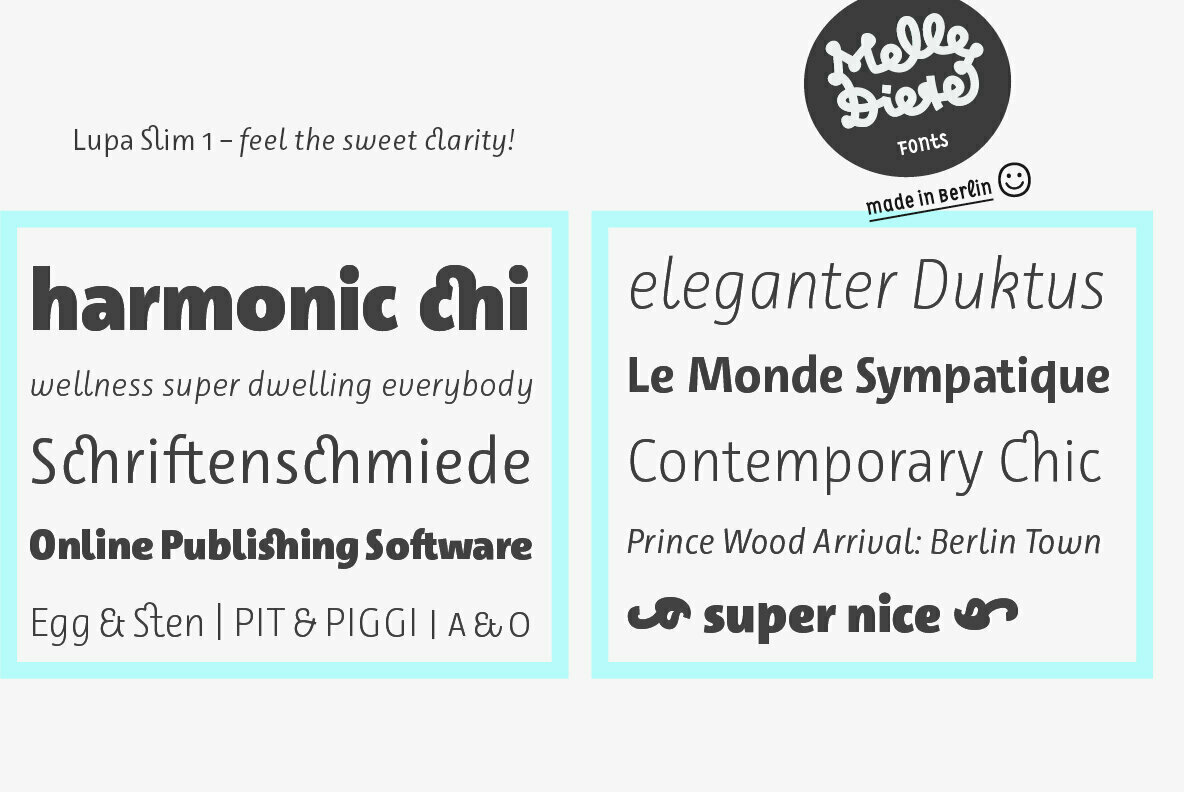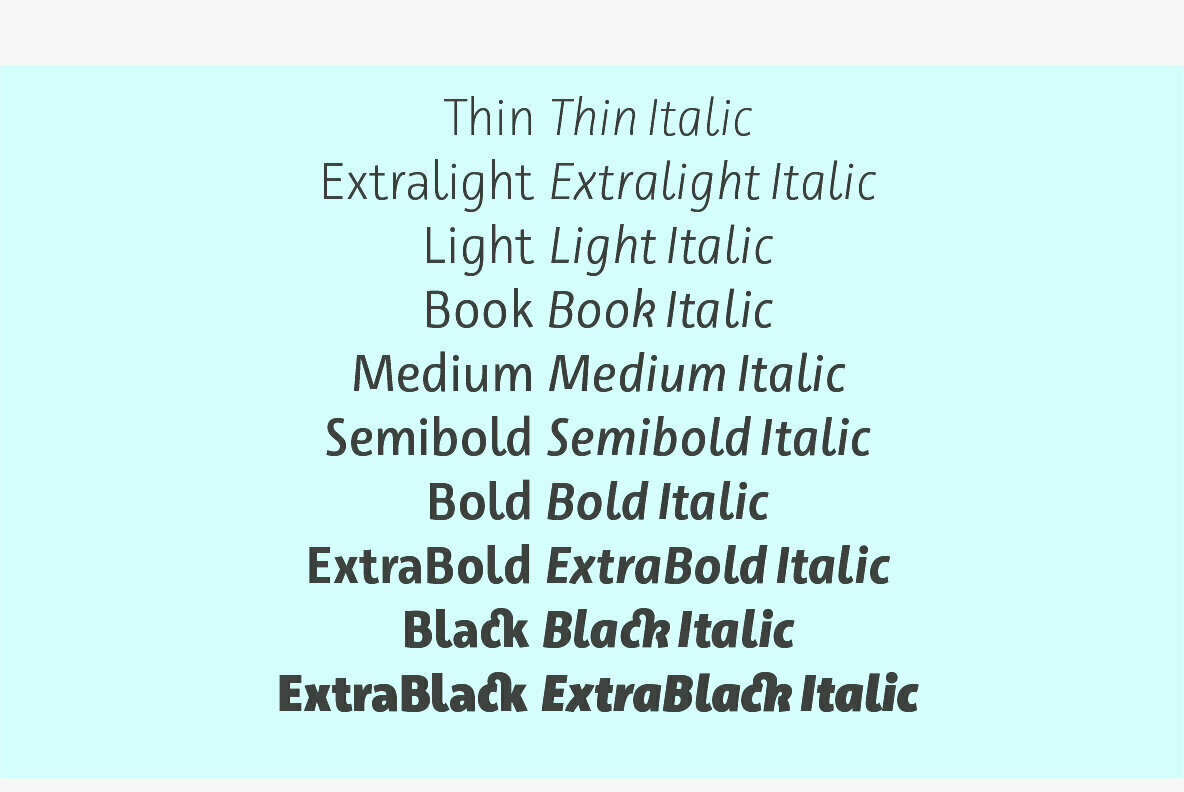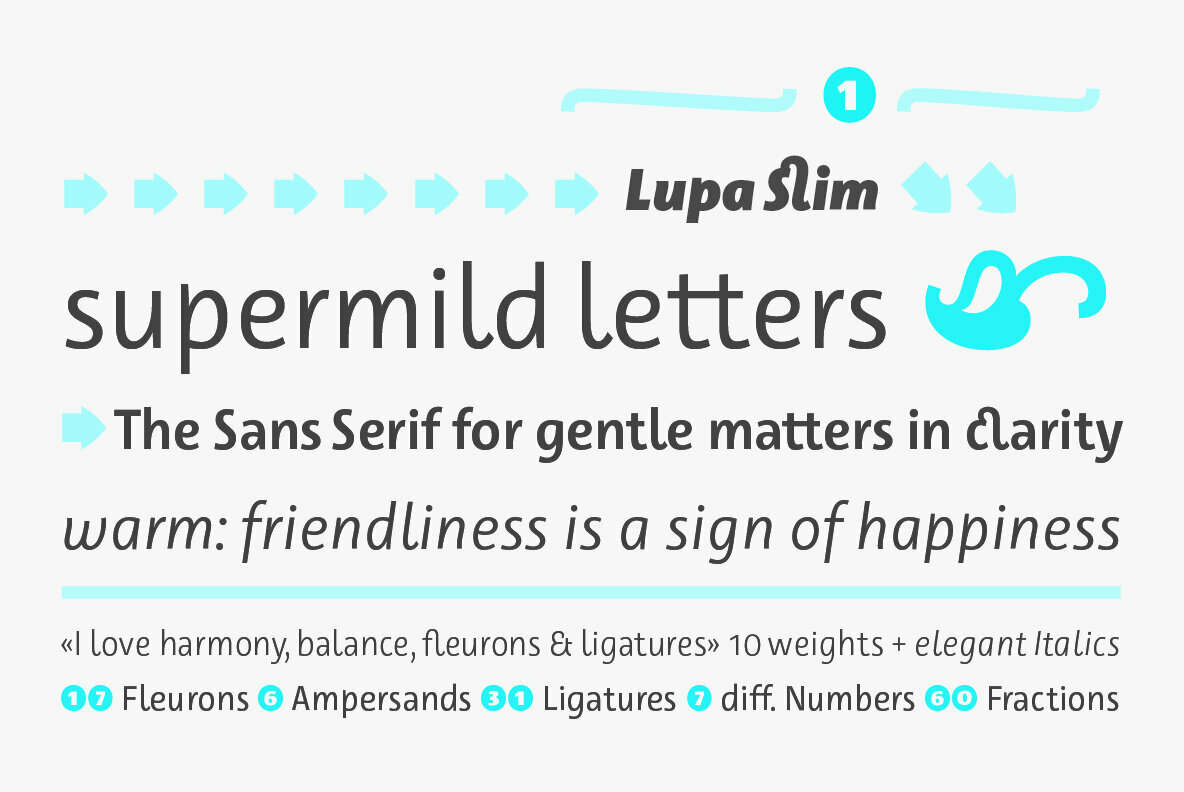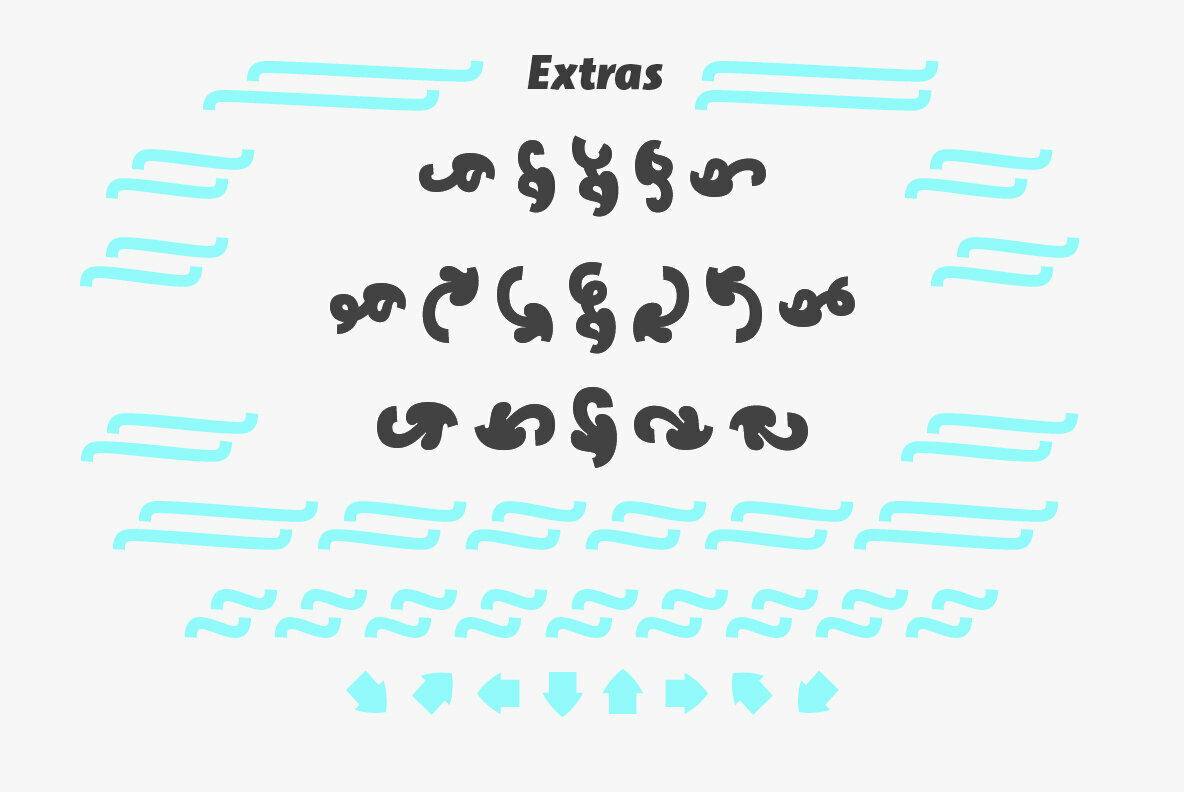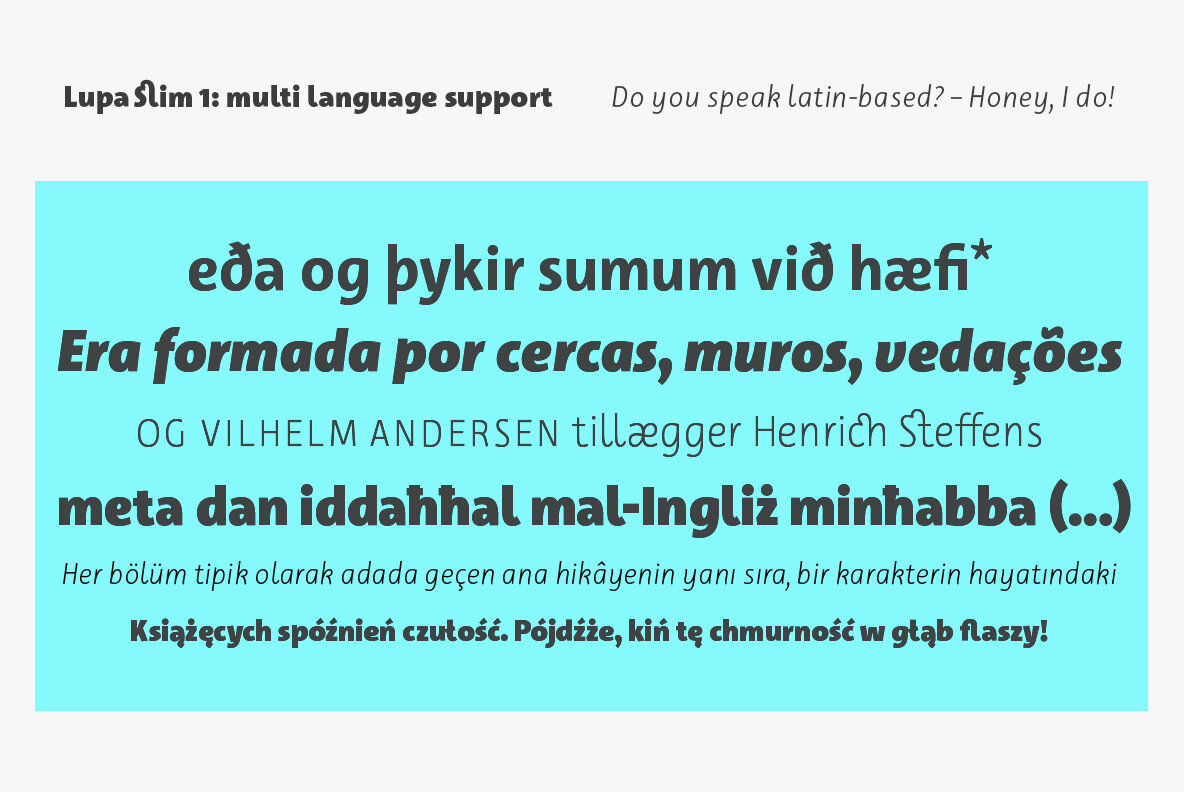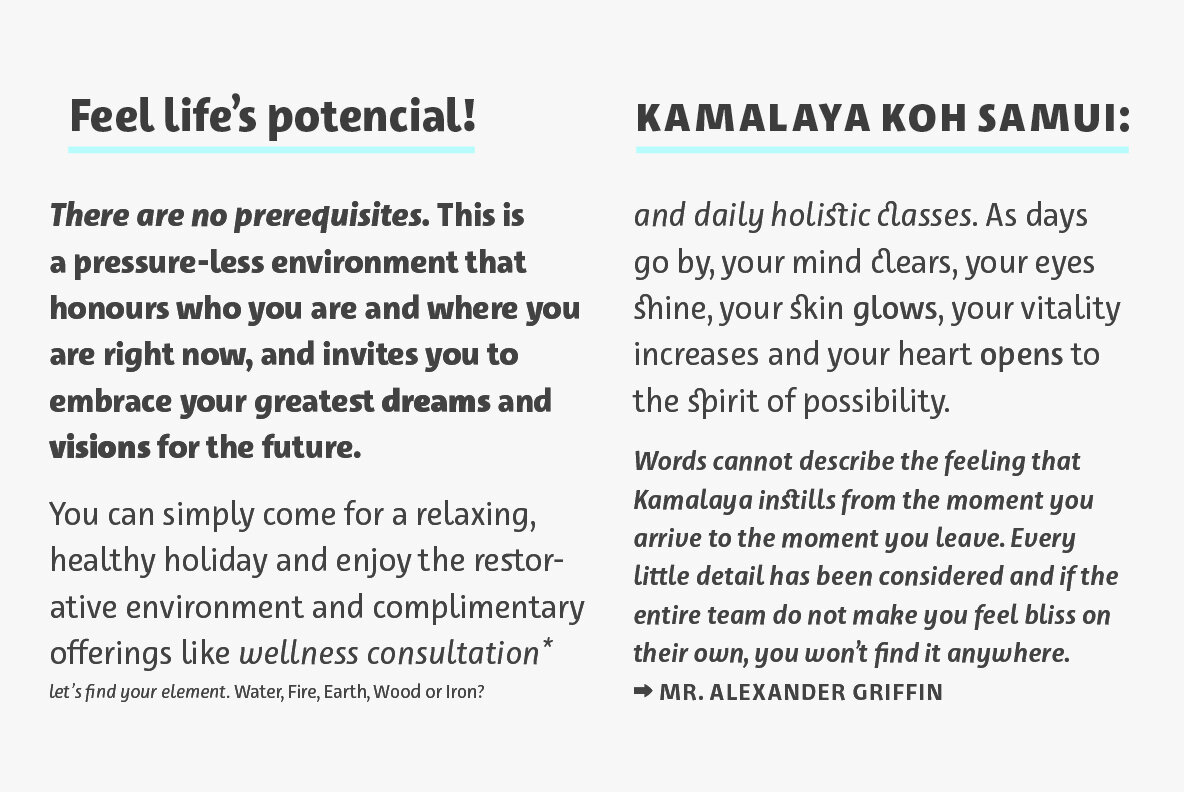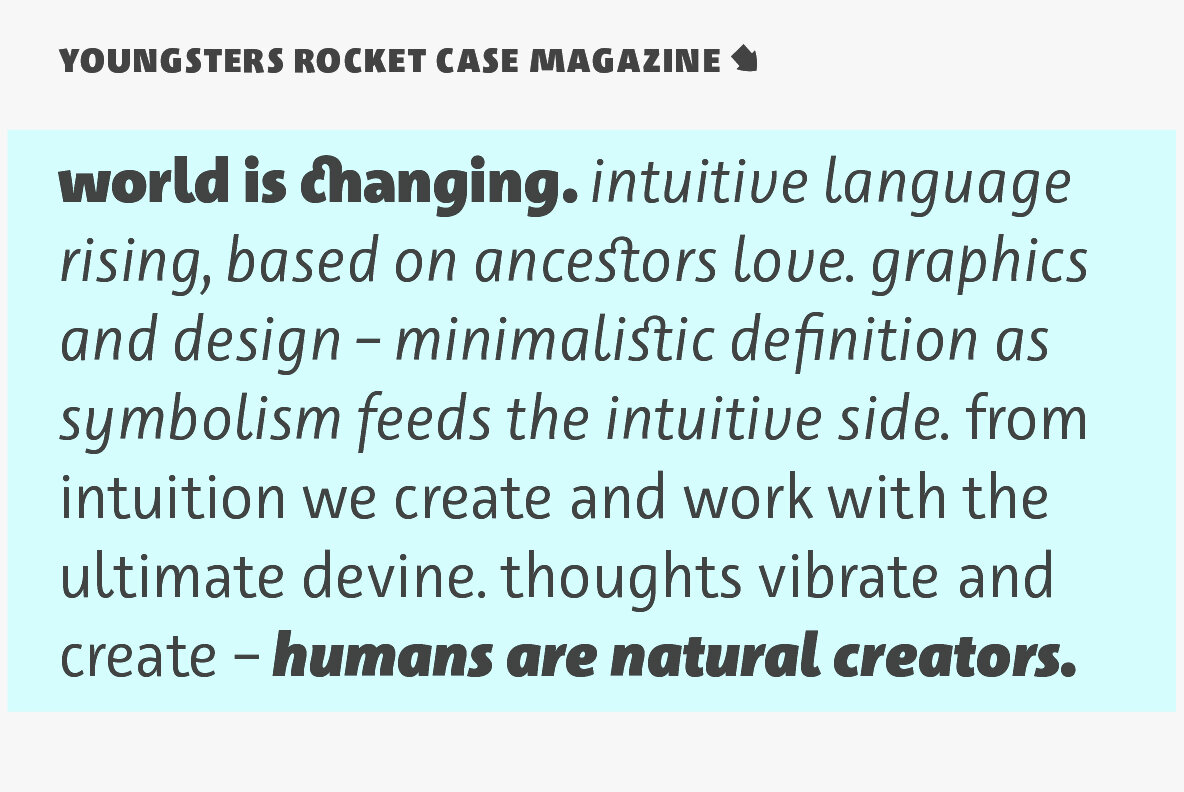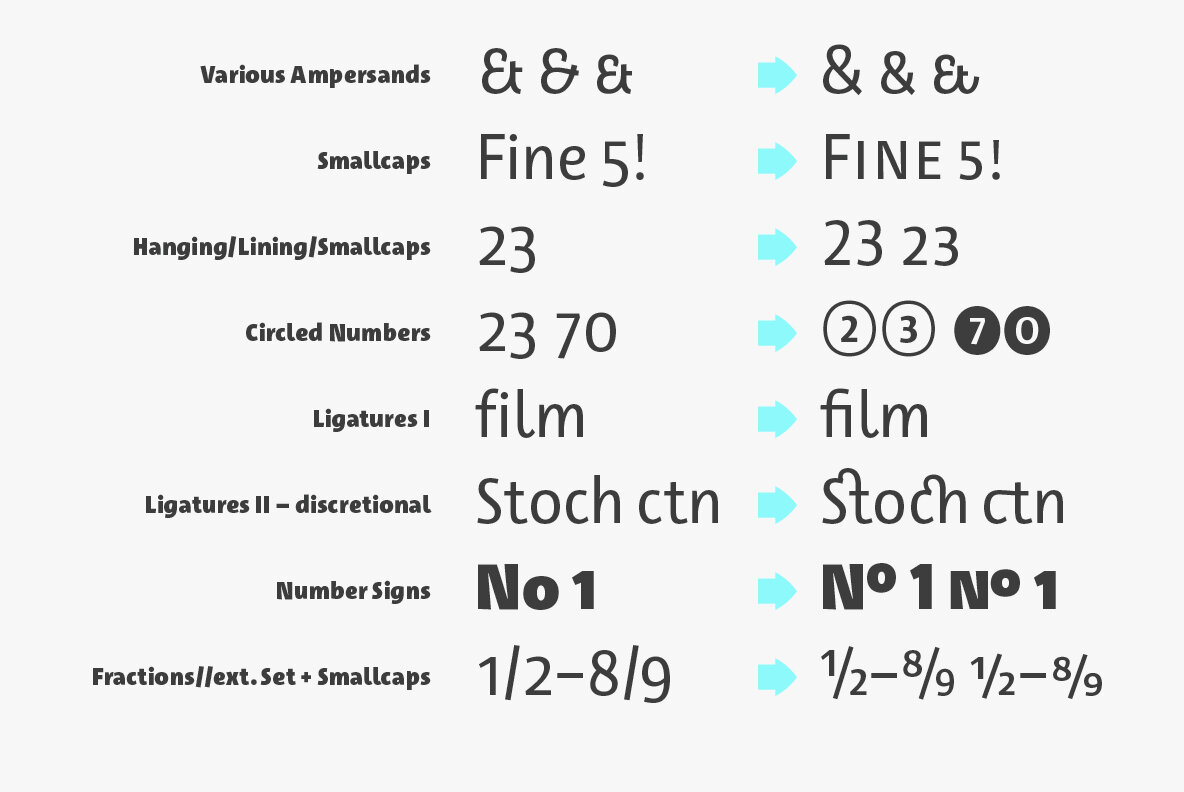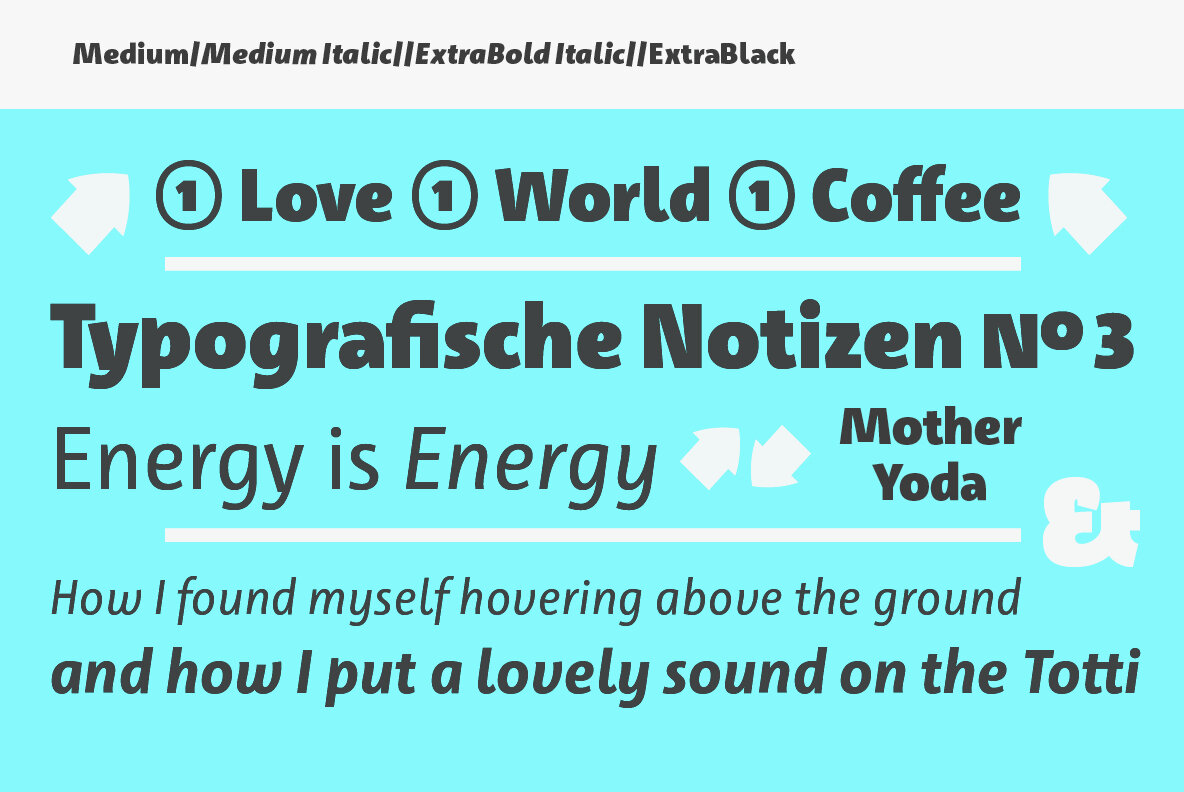
Lupa Slim 1 Font
Lupa Slim 1 exudes warmth and elegance, offering a harmonious atmosphere to any text. This sophisticated sans serif family, with its slight handwritten touch, embodies clarity and subtle femininity. Designed to deliver a comforting aesthetic, Lupa Slim 1 seamlessly integrates into a variety of settings, from professional environments to children’s spaces, health advertising, and beyond.Lupa Slim 1: A Harmonious Sans Serif Typeface
Versatile Features